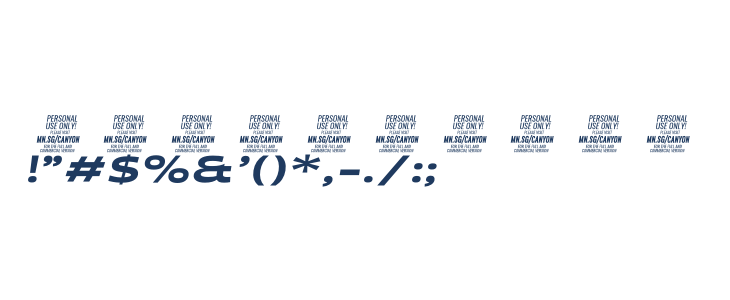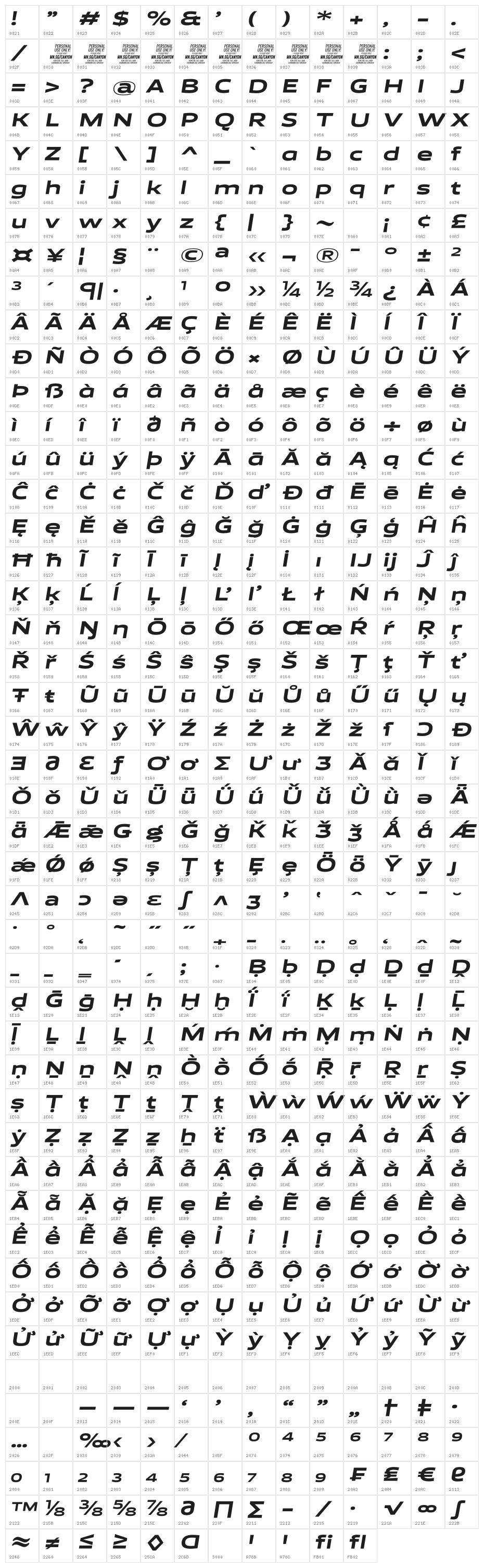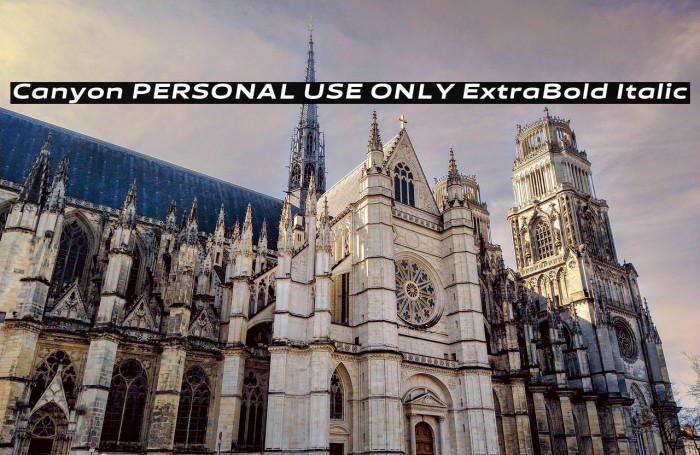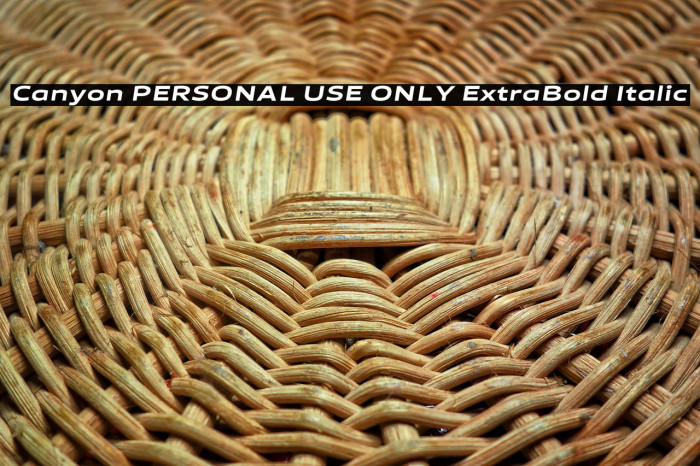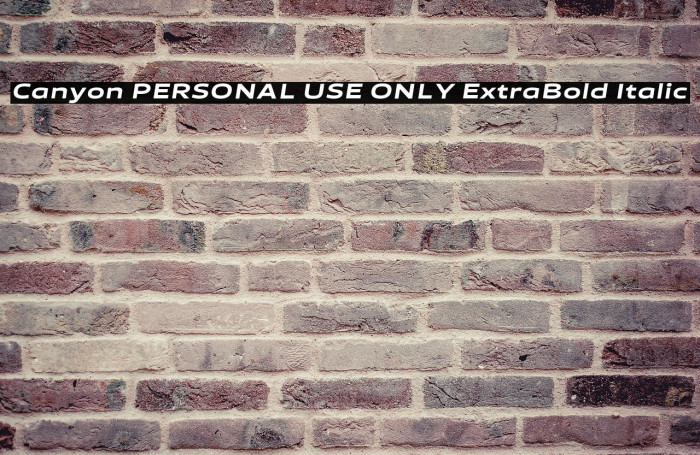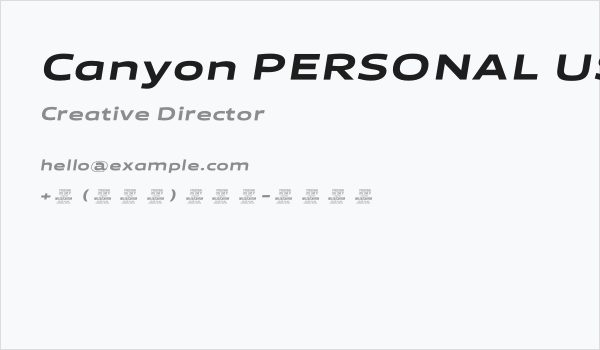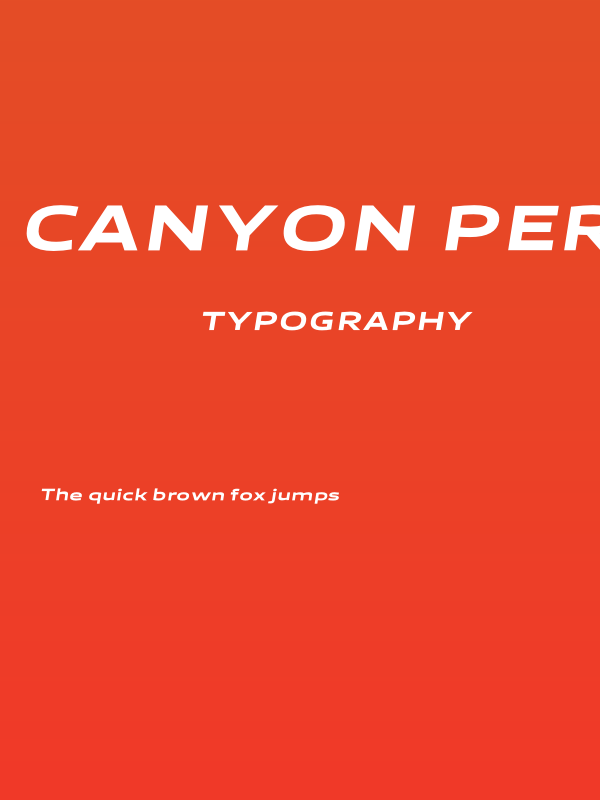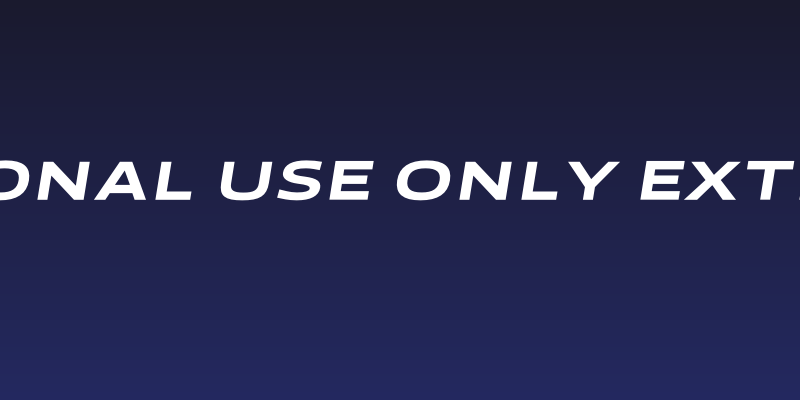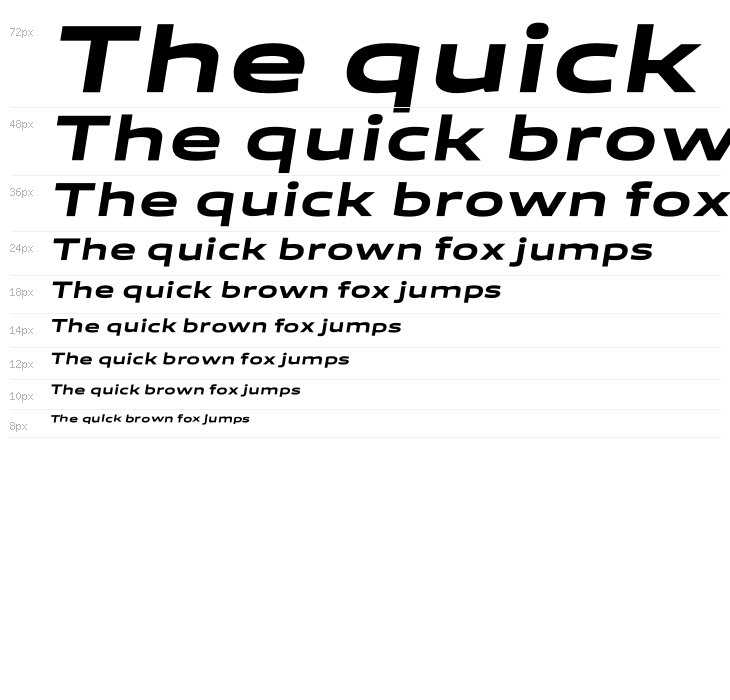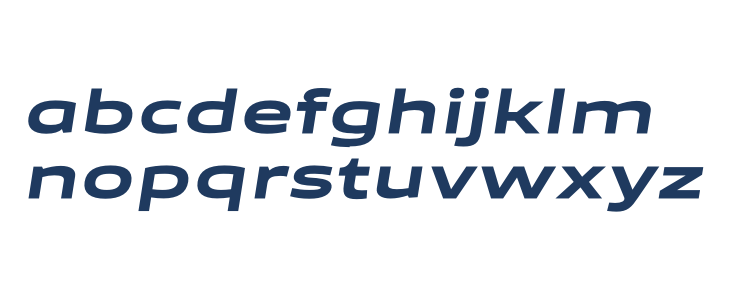
Canyon PERSONAL USE ONLY ExtraBold Italic Font
Canyon PERSONAL USE ONLY ExtraBold Italic Description
This font exhibits a bold and dynamic style with a pronounced italic slant, giving it a sense of motion and energy. The characters are robust and thick, providing a strong visual impact. The uppercase and lowercase letters maintain a consistent style, with smooth curves and sharp edges that enhance readability. The numerals and special characters are designed to match the overall aesthetic, ensuring uniformity across different text elements. This font is ideal for making a statement, with its eye-catching appearance and modern flair.